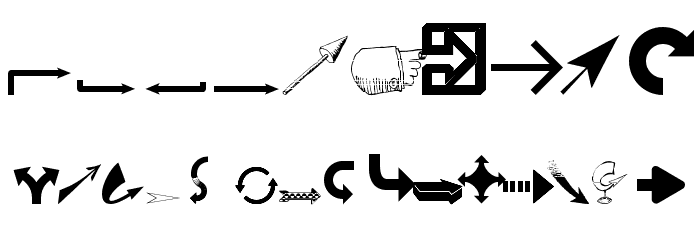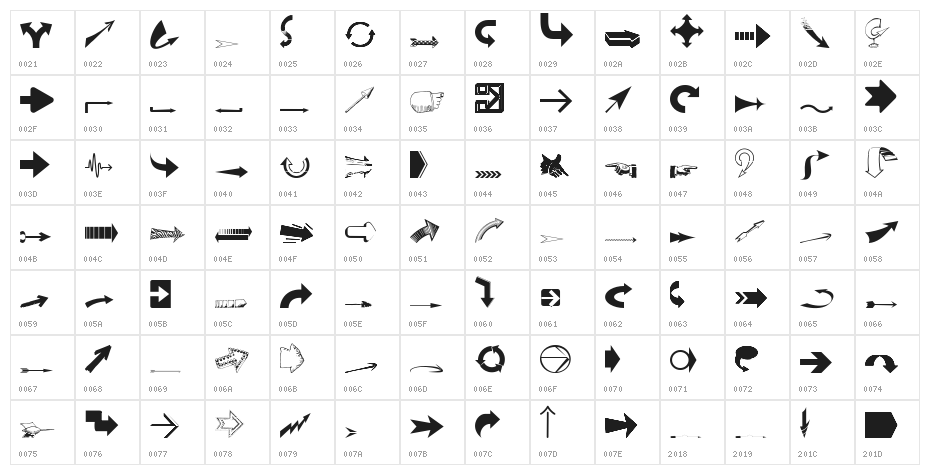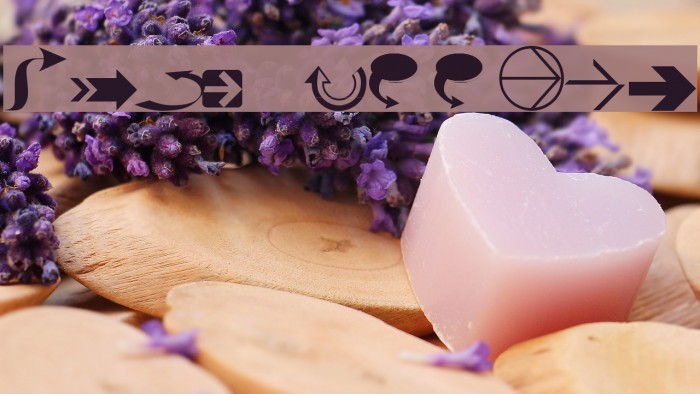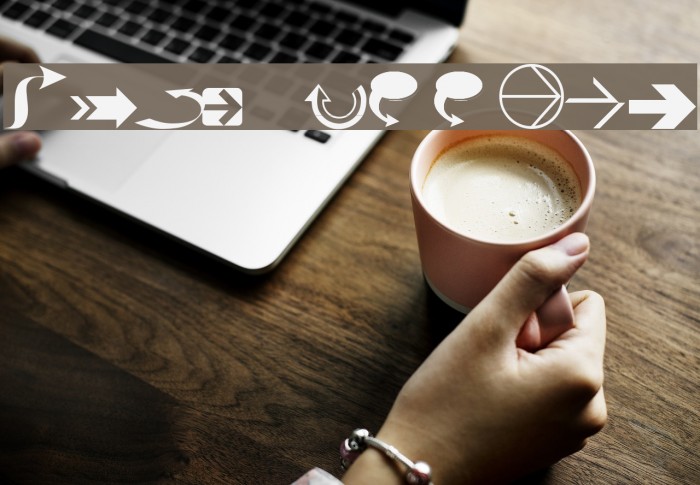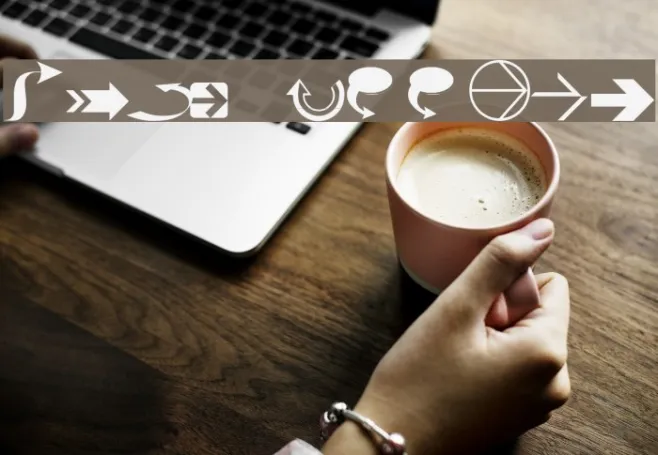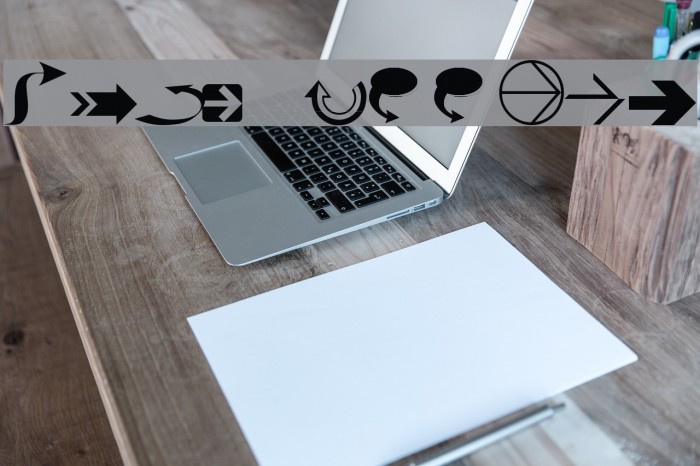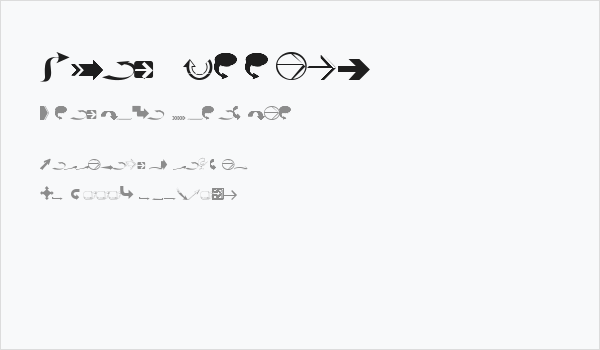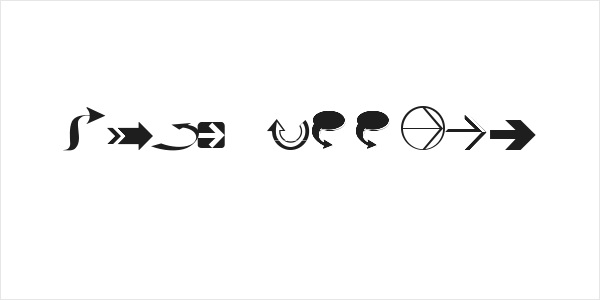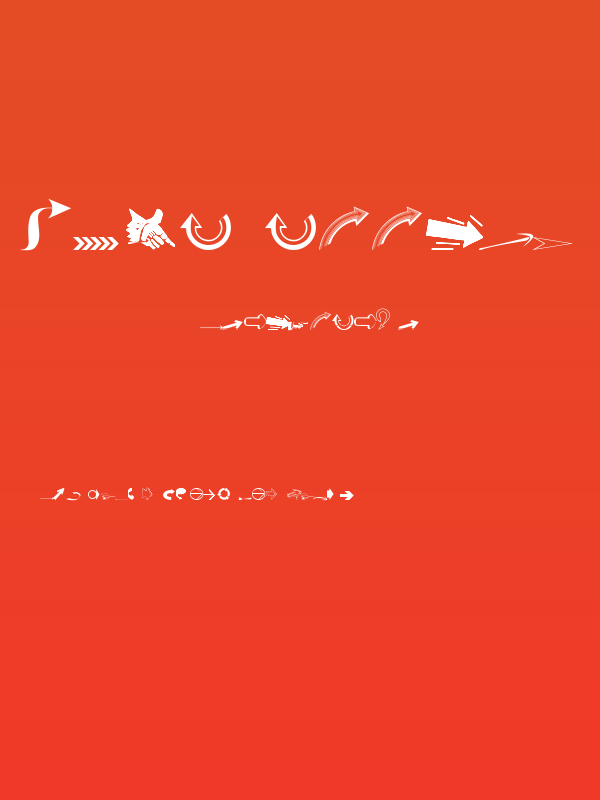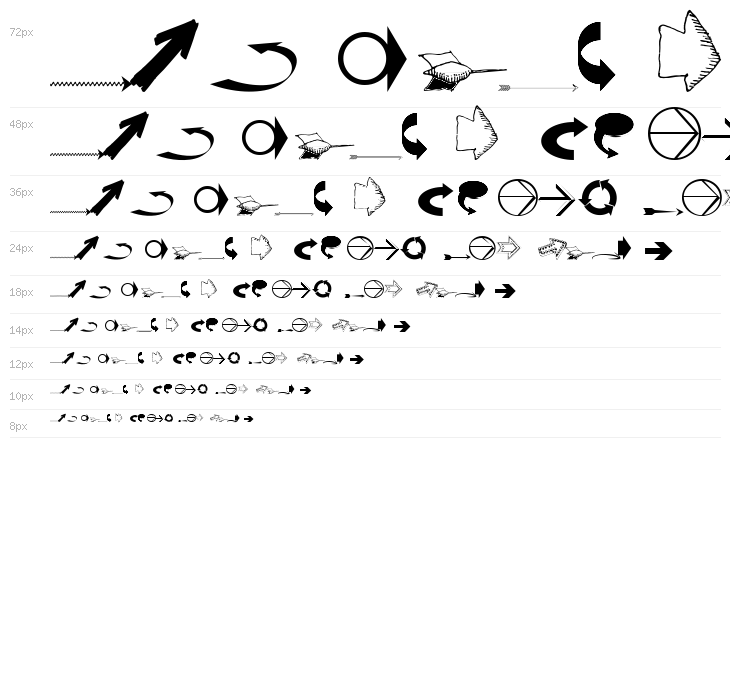
Idea Arrows Font
Idea Arrows Description
A highly decorative and eclectic collection of arrow glyphs, each character represented by a unique arrow or directional symbol, some incorporating hand-drawn, geometric, or illustrative elements. The style varies widely between characters, with some arrows filled, outlined, or textured, and others incorporating hands or additional graphic details.
| Overall Style | Decorative, Eclectic, Playful |
| Use Case | Icons, Decorative elements, Thematic headlines, Visual cues |
| Proposed Projects | Infographics, creative presentations, posters, signage, educational materials, wayfinding systems, playful branding. |